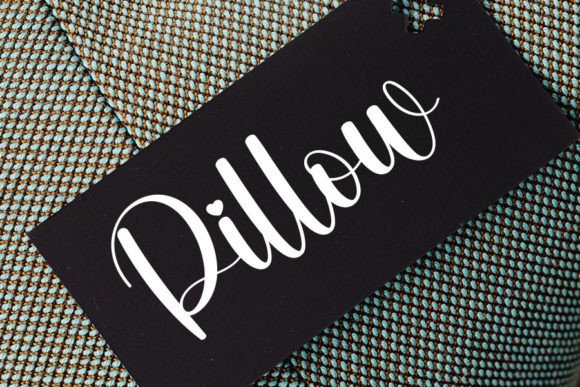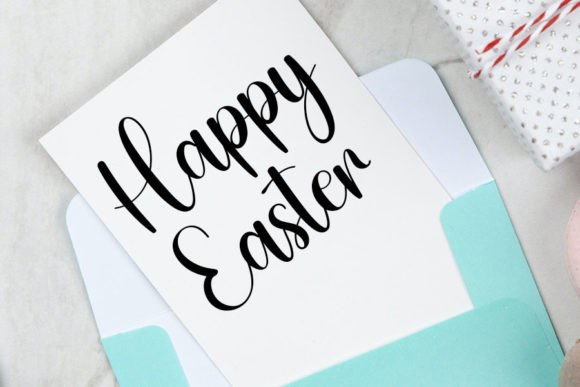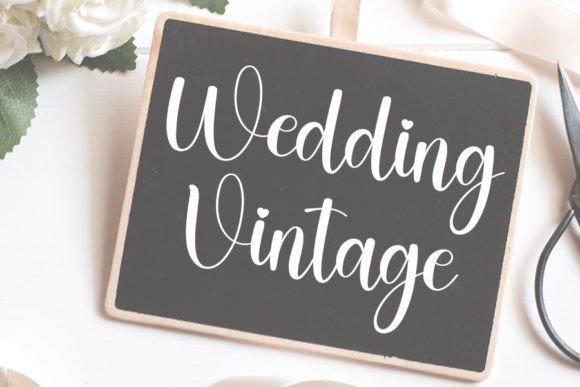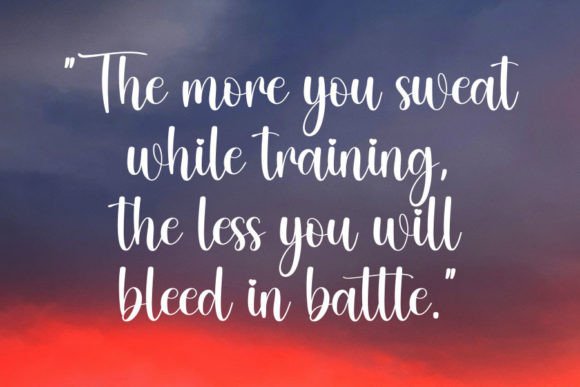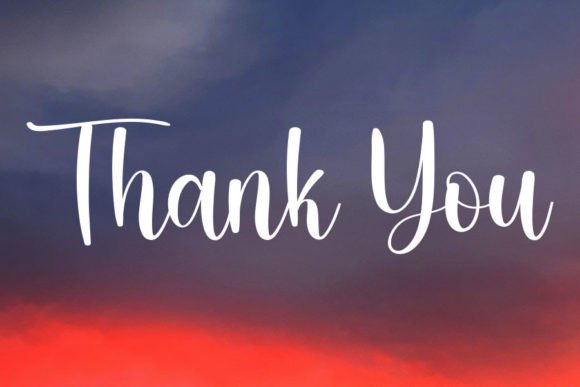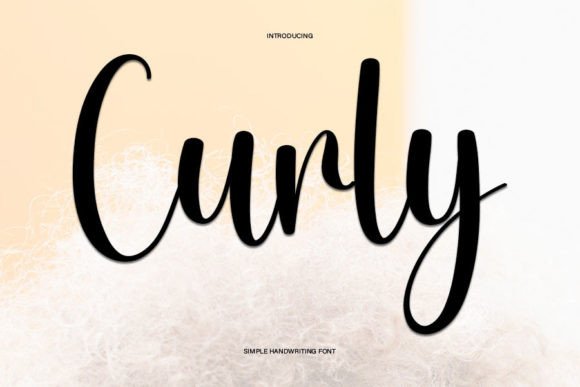
Introducing Curly Font: The Sweet and Beautiful Handwritten Font
Are you looking for a font that can add a touch of luxury and elegance to your design projects? Look no further than Curly Font! This sweet and beautiful handwritten font is perfect for designers and crafters who want to create stunning visuals that stand out from the crowd. In this article, we’ll take a closer look at Curly Font, its features, and how you can use it to elevate your designs.
What is Curly Font?
Curly Font is a handwritten font that features characters that dance along the baseline, creating a playful and whimsical feel. This font is perfect for designs that require a touch of elegance and sophistication. With its unique and flowing curves, Curly Font is sure to capture the attention of your audience and leave a lasting impression.
Key Features of Curly Font
- Handwritten style: Curly Font has a beautiful handwritten style that gives it a personal and unique touch.
- Characters that dance along the baseline: The characters in Curly Font are designed to dance along the baseline, creating a playful and whimsical feel.
- Luxury spark: Curly Font is perfect for designs that require a touch of luxury and elegance.
- Easy to read: Despite its playful and whimsical feel, Curly Font is easy to read and can be used for a variety of design projects.
How to Use Curly Font in Your Design Projects
Curly Font is a versatile font that can be used in a variety of design projects, including:
- Branding and logos: Use Curly Font to create a unique and memorable logo for your brand.
- Invitations and cards: Add a touch of elegance and sophistication to your invitations and cards with Curly Font.
- Social media graphics: Use Curly Font to create stunning social media graphics that stand out from the crowd.
- Packaging design: Add a touch of luxury to your packaging design with Curly Font.
Tips for Using Curly Font Effectively
Here are some tips for using Curly Font effectively in your design projects:
- Use it sparingly: While Curly Font is beautiful, it can be overwhelming if used excessively. Use it sparingly to add a touch of elegance and sophistication to your designs.
- Pair it with a simple font: Pair Curly Font with a simple font to create a beautiful contrast and make your designs more readable.
- Experiment with colors and textures: Experiment with different colors and textures to add depth and interest to your designs.
Why Choose Curly Font?
There are many reasons why you should choose Curly Font for your design projects. Here are a few:
- Unique and elegant: Curly Font is a unique and elegant font that can add a touch of luxury to your designs.
- Easy to read: Despite its playful and whimsical feel, Curly Font is easy to read and can be used for a variety of design projects.
- Versatile: Curly Font is a versatile font that can be used in a variety of design projects, from branding and logos to social media graphics and packaging design.
| Font Name | Curly Font |
| Author | Harlek studio |
In conclusion, Curly Font is a beautiful and elegant handwritten font that can add a touch of luxury to your design projects. With its unique and flowing curves, Curly Font is sure to capture the attention of your audience and leave a lasting impression. Whether you’re a designer or crafter, Curly Font is a great choice for anyone looking to create stunning visuals that stand out from the crowd.